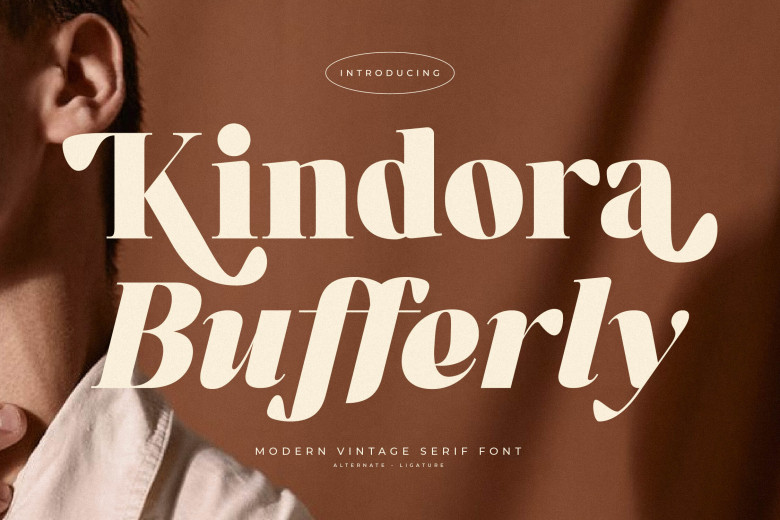
Kindora Bufferly Font
Kindora Bufferly Modern Vintage Serif Font by Letterena is an ideal font choice for logos, branding and homeware, designs, packaging for products, cups, posters, quotes, bags for shopping, t-shirts, books, name cards, invite cards, greeting cards, labels, watermark, photography, special, occasions, photography, special events, photography or any project requiring luxurious serif styles.
Kindora Bufferly Serif Font